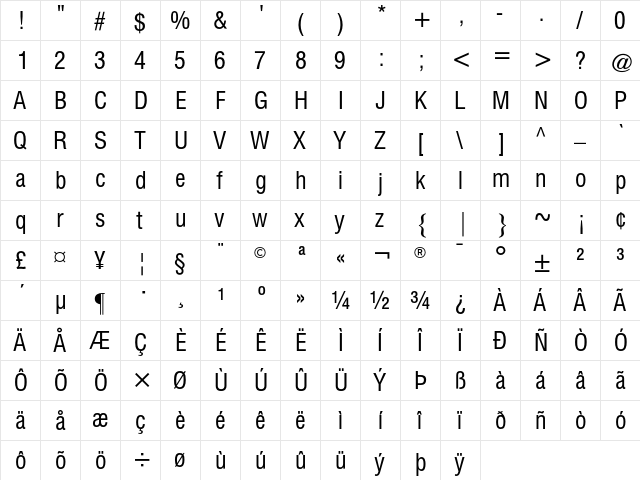
ATTriumvirateCondensed Regular
Design Context for ATTriumvirateCondensed Typeface
ATTriumvirateCondensed is a composed and adaptable typeface that performs quietly and consistently across a wide range of design contexts. The condensed width makes it efficient for tight spaces without sacrificing legibility.
Pro Tip: Pair ATTriumvirateCondensed with a font of contrasting weight or personality to build a more expressive typographic hierarchy.